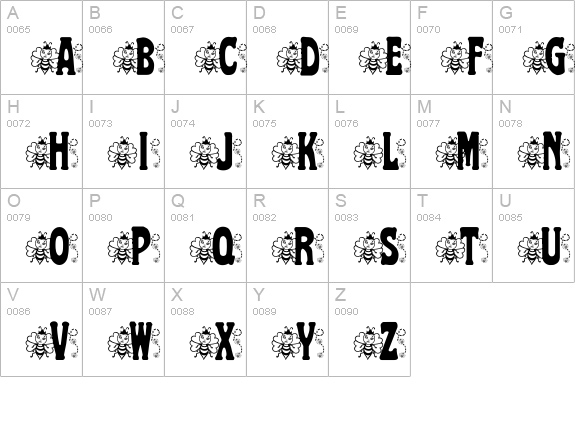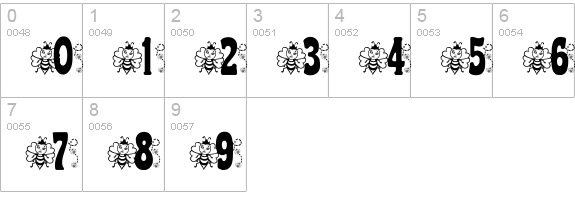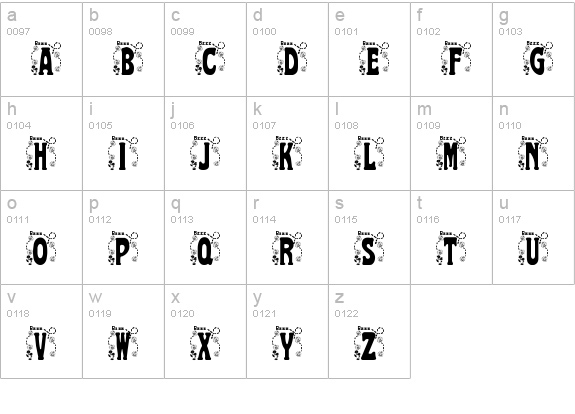
BJF Hunnybee Font Details
Introducing BJF Hunnybee, a captivating and versatile font that will add a touch of sweetness to your designs. This font is perfect for those who want to make a statement with their typography, whether it's for a logo, branding materials, or any creative project. With its unique and playful style, BJF Hunnybee will bring a sense of joy and warmth to any design. The rounded edges and flowing lines create a friendly and approachable feel, making it an excellent choice for conveying positivity and optimism. One of the best things about BJF Hunnybee is that it is absolutely free! Yes, you read that right. This incredible font is freely available to download at FontsMarket.com, where you can easily access it and start incorporating its delightful charm into your creations. Whether you're a professional designer or a hobbyist, BJF Hunnybee will undoubtedly become your go-to font. Its versatility allows it to seamlessly adapt to various design styles, making it suitable for a wide range of projects. From greeting cards and invitations to posters and social media graphics, BJF Hunnybee will add a touch of whimsy and elegance to every piece. Its legibility ensures that your messages will be conveyed effortlessly, while the unique character of the font adds an element of surprise and delight. So why wait? Don't miss out on this amazing opportunity to enhance your designs with BJF Hunnybee. Download it for free at FontsMarket.com and unleash your creativity with this captivating and freely available font.